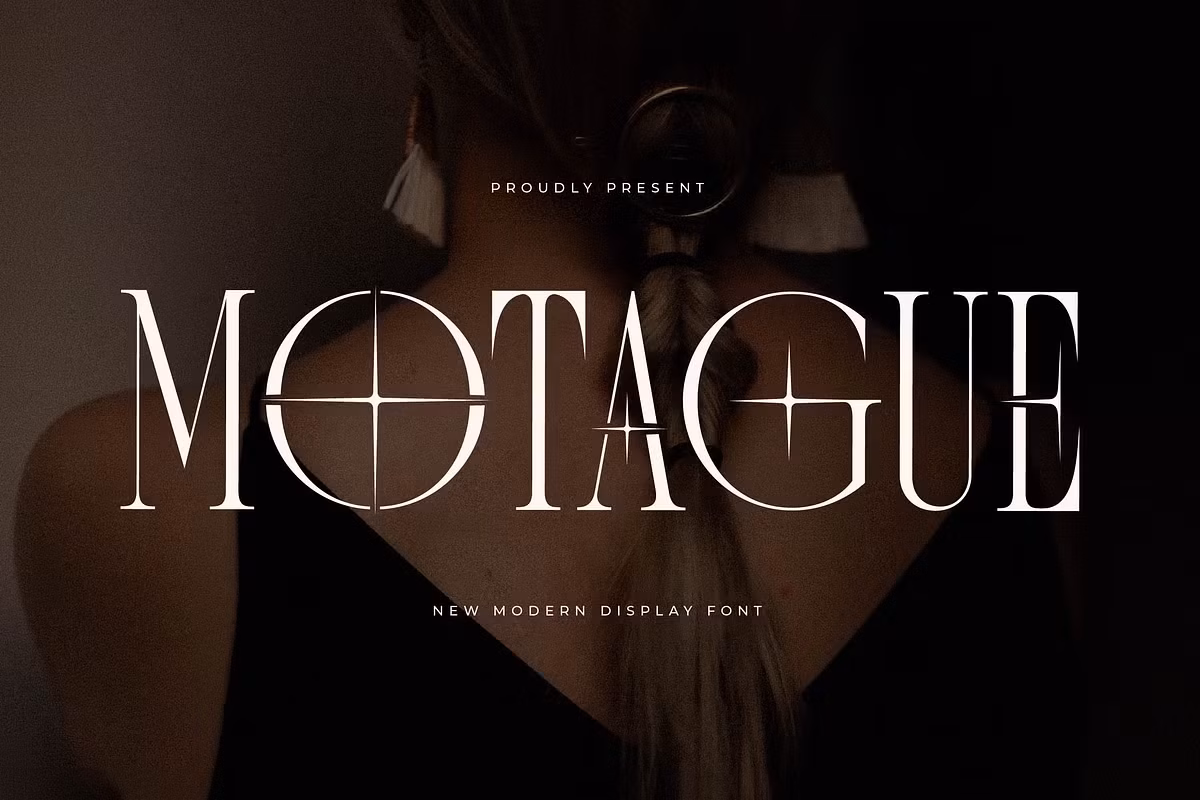
Motague New Modern Display Font Free Download is a bold, sleek typeface designed to make a strong impact. With its clean, modern lines and high contrast, this font is perfect for headlines, logos, posters, and any project that demands attention-grabbing typography. Its unique and contemporary design ensures that your work will stand out with style and clarity.
Whether you're building a contemporary brand, creating a stunning promotional piece, or designing eye-catching advertisements, Motague New delivers boldness and sophistication to your typography. It’s the perfect font for designers who value modern elegance.